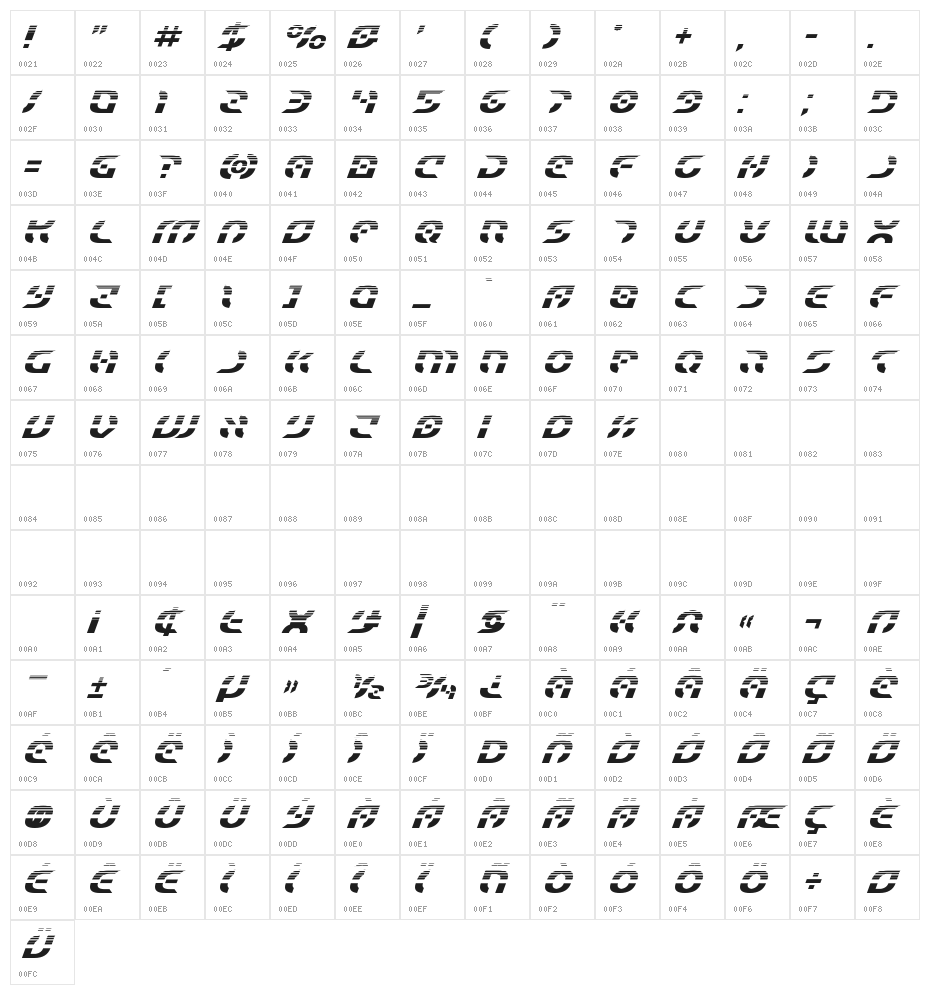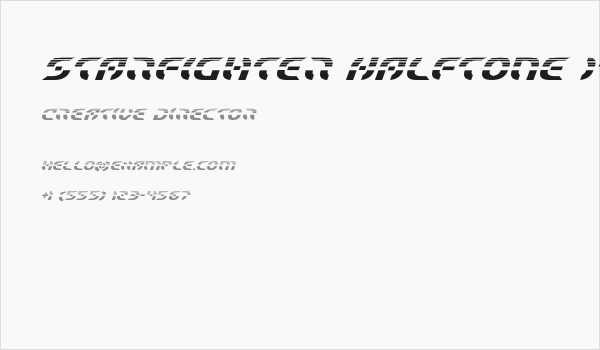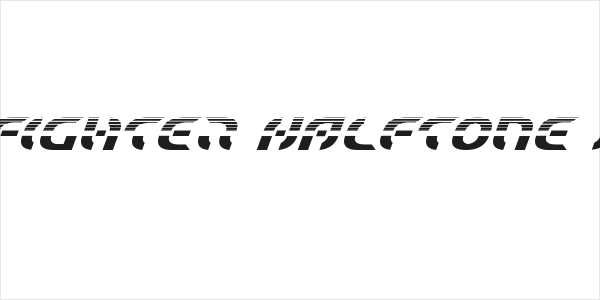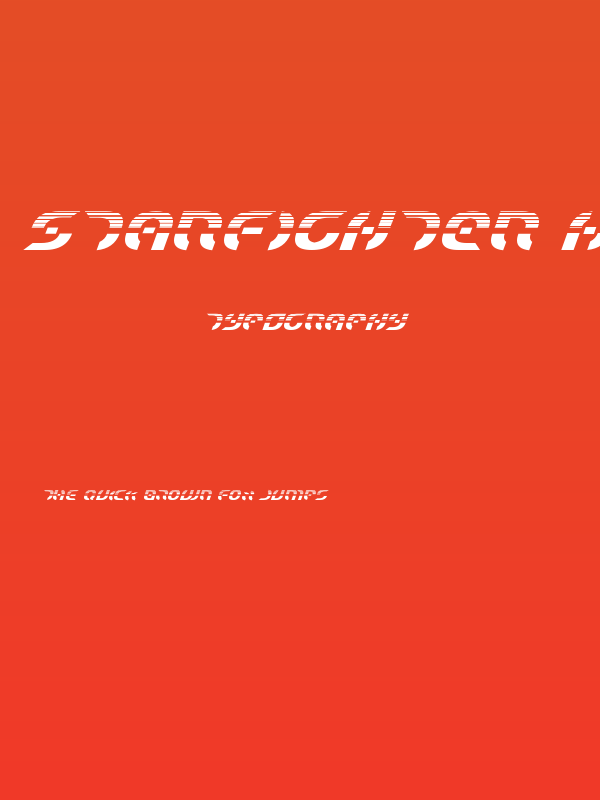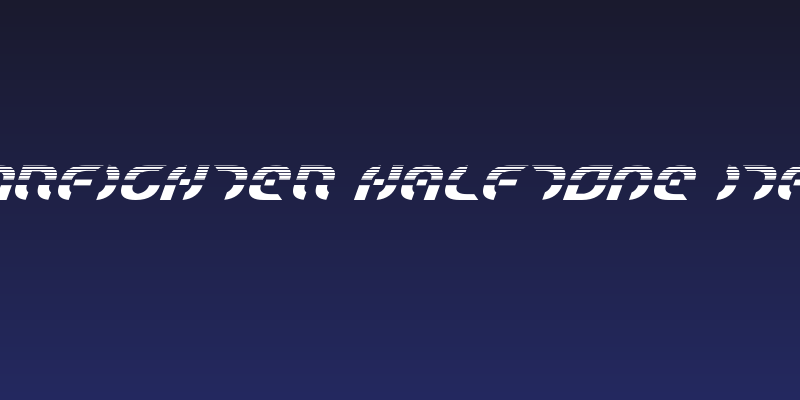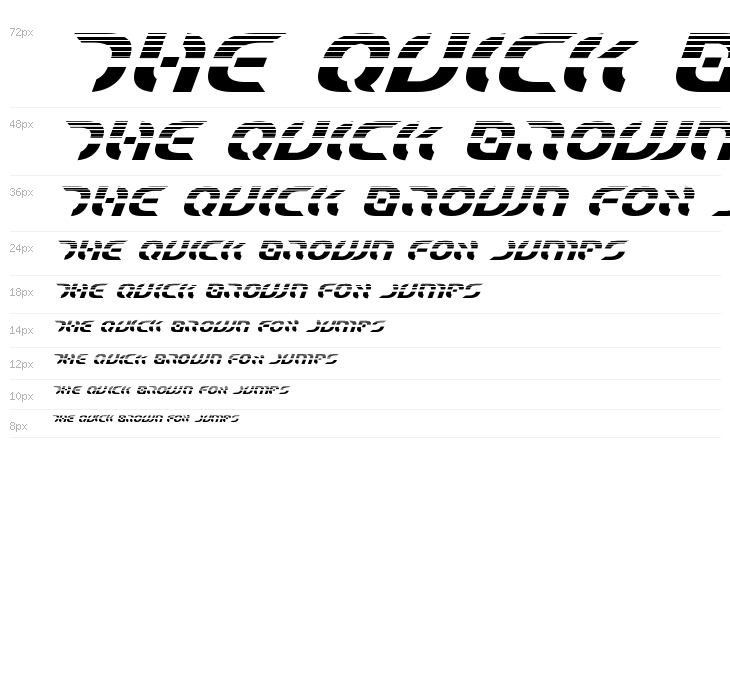
Starfighter Halftone Italic Font
Starfighter Halftone Italic Description
This font features a futuristic and dynamic design, characterized by its halftone pattern and italic slant. The characters are bold and wide, with a distinct horizontal striping effect that gives a sense of motion and speed. The uppercase and lowercase letters maintain a consistent style, with sharp angles and clean lines. Numbers and special characters follow the same aesthetic, ensuring uniformity across all glyphs. This font is ideal for projects that require a modern and edgy look, such as technology-related branding or sci-fi themed designs.
| Proposed Projects | Ideal for sci-fi movie posters, tech company logos, video game titles, and futuristic branding. |